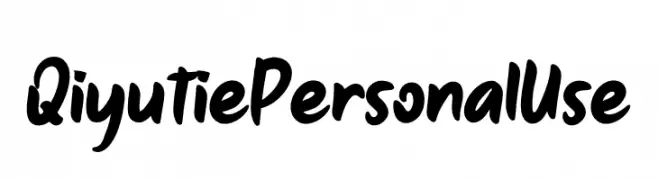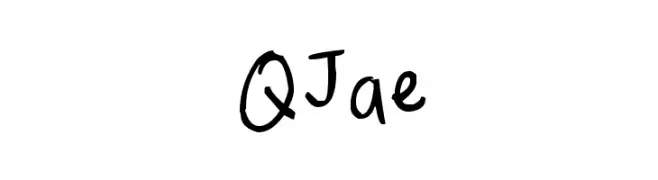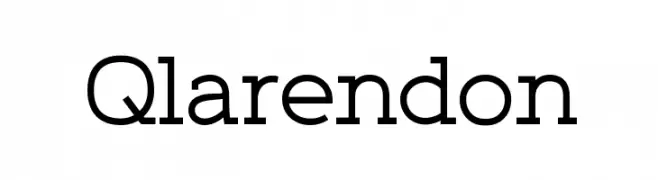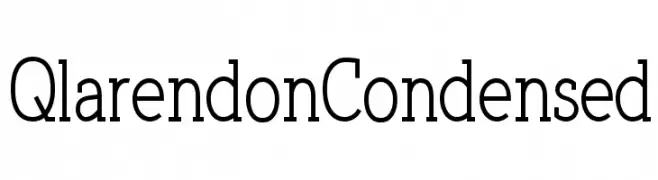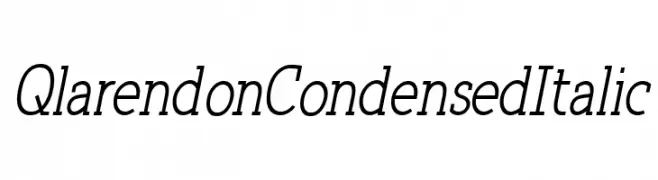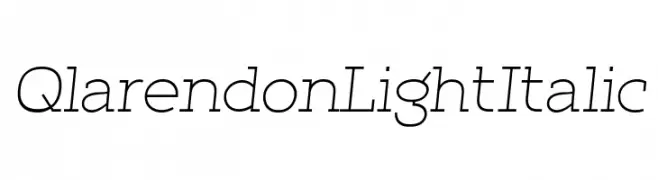
A bold, dynamic script font with a hand-drawn, playful style.
A casual, playful handwritten font with irregular strokes and a friendly appearance.
( Fonts by Qwerks )
A modern slab serif font with bold serifs and clean lines.
( Fonts by Qwerks )
A bold slab serif font with strong, block-like serifs and a commanding presence.
( Fonts by Qwerks )
A classic slab serif font with a condensed and modern design.
( Fonts by Qwerks )
A condensed, italic serif font with elegant, elongated strokes.
( Fonts by Qwerks )
A classic, italicized font with moderate contrast and elegant styling.
( Fonts by Qwerks )
A clean, modern font with consistent stroke width and elegant design.
( Fonts by Qwerks )
A light, elegant italic font with refined proportions and smooth flow.
( Fonts by www.thebend.be - Dimitri Castrique )
A bold, clean sans-serif font with smooth curves and uniform strokes.